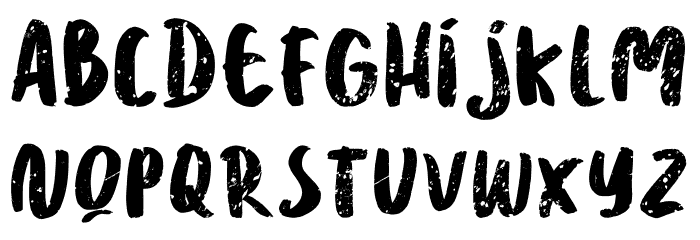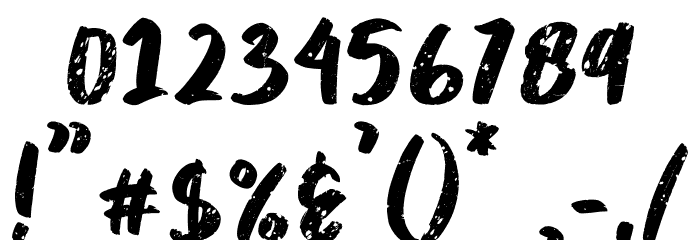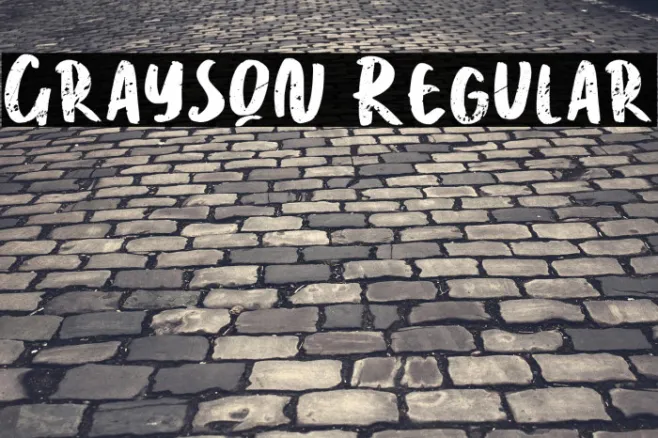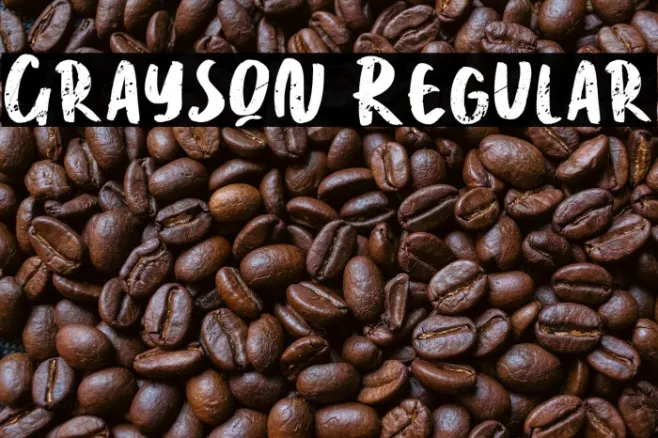
Grayson Regular Font
This font features a bold, hand-painted style with a textured, distressed appearance. The characters are thick and have an organic, brush-like quality, giving them a dynamic and energetic feel. The uppercase and lowercase letters maintain a consistent style, with slightly irregular edges that add to the handcrafted look. The numbers and special characters follow the same aesthetic, making the font versatile for various creative projects. The overall design is eye-catching and suitable for making a strong visual impact.
A bold, textured, hand-painted style font with a dynamic, distressed look.
- Proposed Projects: Ideal for posters, branding, packaging, and any project requiring a bold, artistic touch.